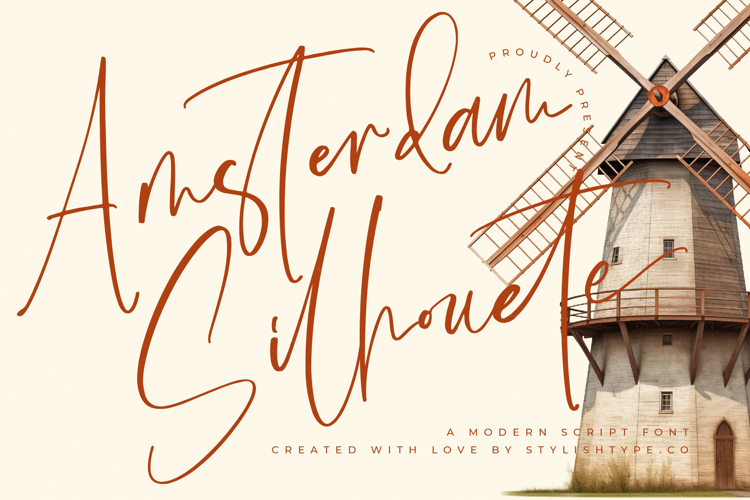
Amsterdam Silhouete - Modern Script Font
Amsterdam Silhouete delivers an aesthetic that is perfect for branding, editorial layouts, fashion-related designs, and wedding stationery. Its versatility makes it an excellent choice for both digital projects and print media, ensuring your work maintains a strong and stylish presence in any format. Whether used in logo design, product packaging, or social media content, this script font adds a layer of modern elegance that captures attention instantly.
This font is ideal for creatives who want their designs to stand out with a signature look. Its handwritten charm gives every project a sense of authenticity, while its modern structure ensures it aligns with today’s design trends. From romantic invitations to high-end advertisements, Amsterdam Silhouete communicates refinement, style, and timeless artistry.
If you are looking for a typeface that merges modern sophistication with the warmth of handcrafted design, Amsterdam Silhouete is the perfect choice. It transforms ordinary words into captivating visuals, giving your creative work a memorable and elegant identity.